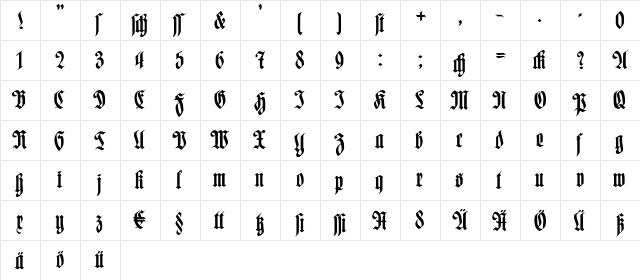
Hartwig-Schrift Regular
Design Context for Hartwig-Schrift Typeface
Hartwig-Schrift is a composed and adaptable typeface that performs quietly and consistently across a wide range of design contexts.